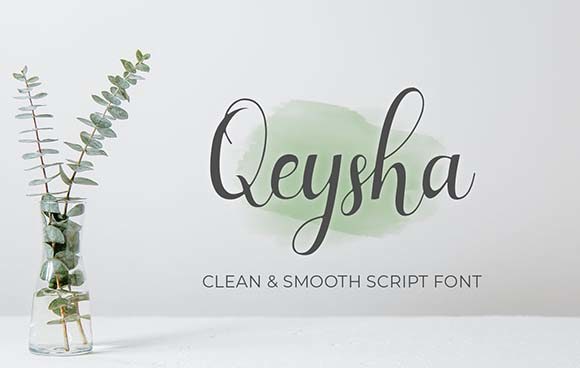
Indulge in the enchanting world of Qeysha Script Font, a masterpiece designed to ignite your creativity and captivate your audience.
Qeysha, the embodiment of elegance and femininity, is a script font that weaves a tapestry of grace and sophistication into your designs. With its delicate curves and flowing strokes, it dances across digital and physical pages alike, leaving an unforgettable impression.
Crafted by the skilled artisans at Panrita Studio, Qeysha possesses a timeless appeal that transcends fleeting trends. Its versatility knows no bounds, transforming logos into emblems of luxury, wedding invitations into cherished keepsakes, and birthday cards into heartfelt expressions of love.
Whether you grace your designs with enchanting quotes, bold headlines, or the pages of captivating magazines, Qeysha will elevate your creations to new heights. Its alluring charm will weave a spell upon your audience, drawing them into the captivating world you envision.
Experience the magic of Qeysha Script Font today and let your imagination soar. Let its elegance inspire your designs, its femininity captivate your audience, and its versatility empower you to create masterpieces that will leave an enduring legacy.